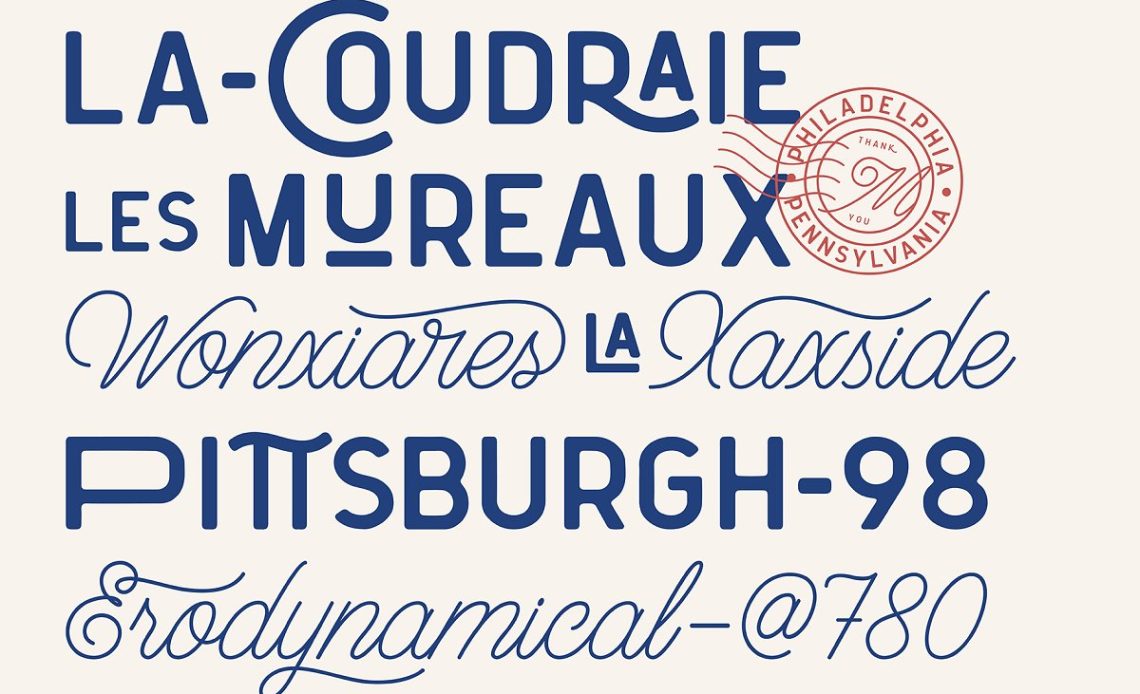
Introducing the Marvelous Font Duo - the perfect addition to your font collection! Created by the talented Amir Muhammad, this font family includes both a beautiful monoline and sans serif font, making it incredibly versatile for a wide range of design purposes.
Are you looking to add a touch of retro charm to your project? Look no further! The Marvelous Font Duo is the font for retro design, allowing you to create stunning logos, branding, clothing designs, signage, posters, and even wedding invitations.
One of the key features of the Marvelous Font Duo is its easily legible characters. Each letter has been carefully crafted to ensure maximum readability, making it a great choice for any design project, big or small.
But what really sets this font apart is the personal touch that Amir has added to each character. Based on his own handwriting, the Marvelous Font Duo retains that unique, handmade feel, giving your designs a hint of authenticity that's hard to find in other fonts.
And with so many alternates styles, number, punctuation and symbol options, as well as ligature and discretionary ligature features (available only for the sans font), you'll have everything you need to take your designs to the next level.